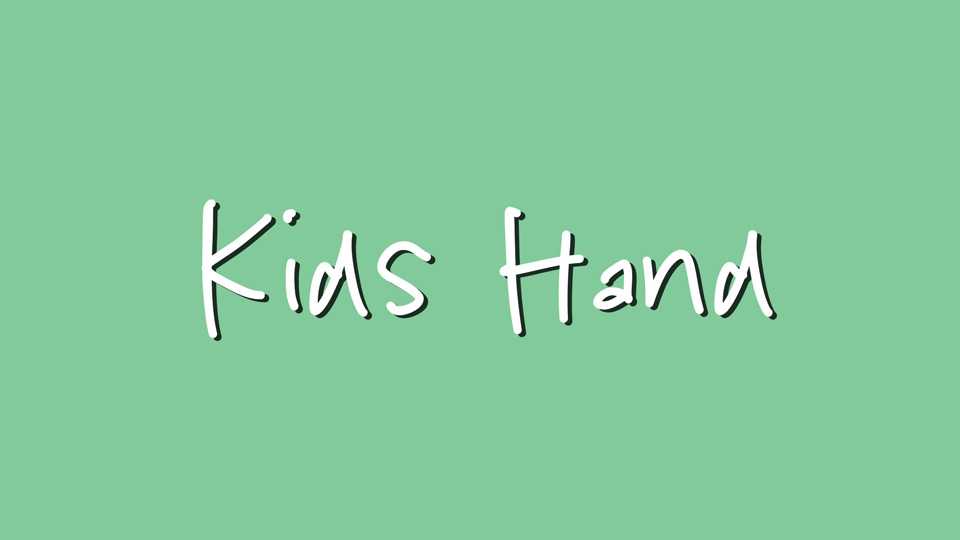
Download Kids Hand font, a quirky and imperfect hand lettered typeface, perfect for any project that needs a touch of whimsy and fun. From greeting cards and invitations to social media graphics and branding materials, Kids Hand font will bring a playful energy to your design.